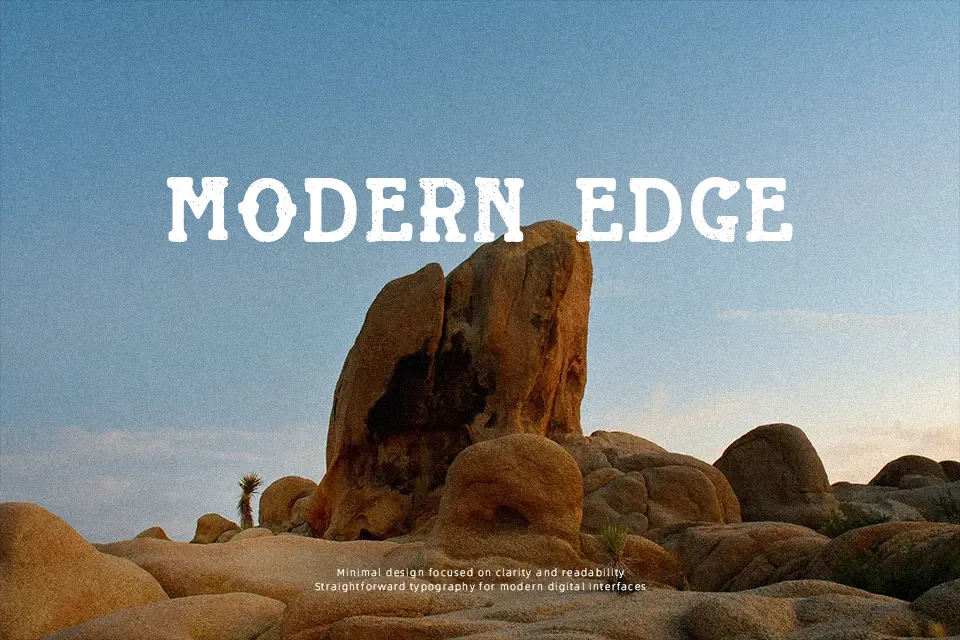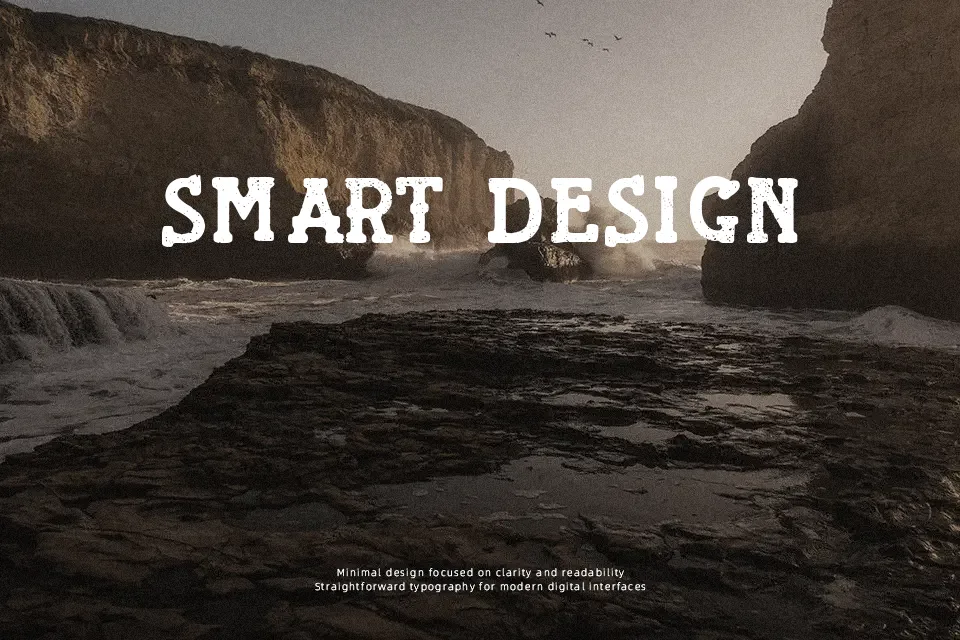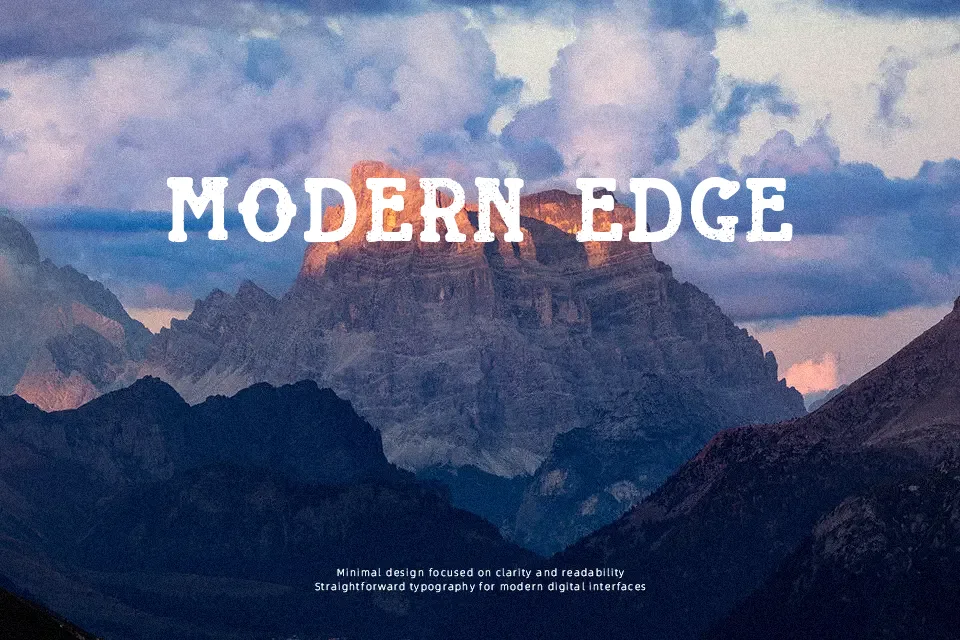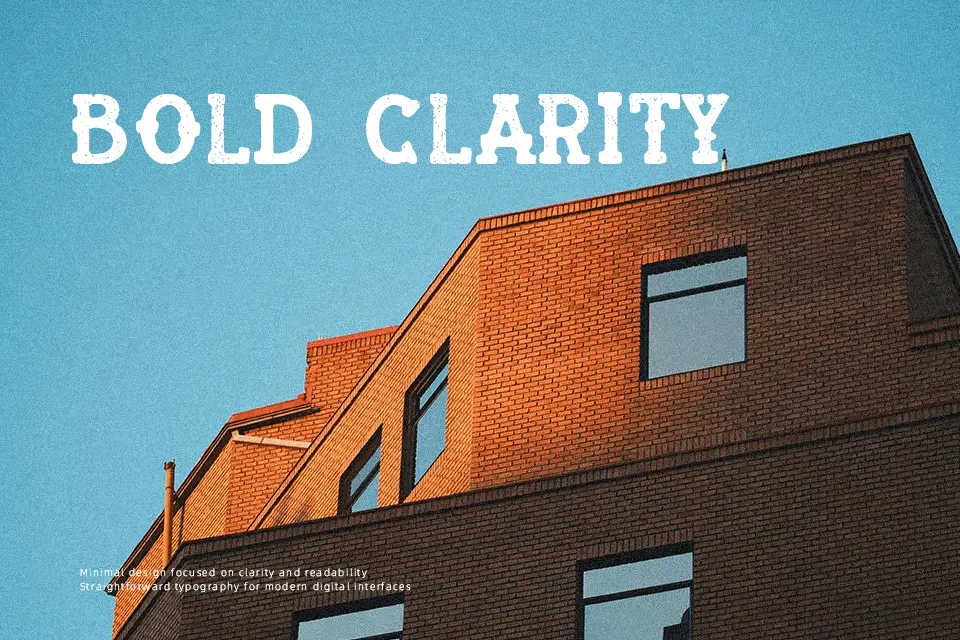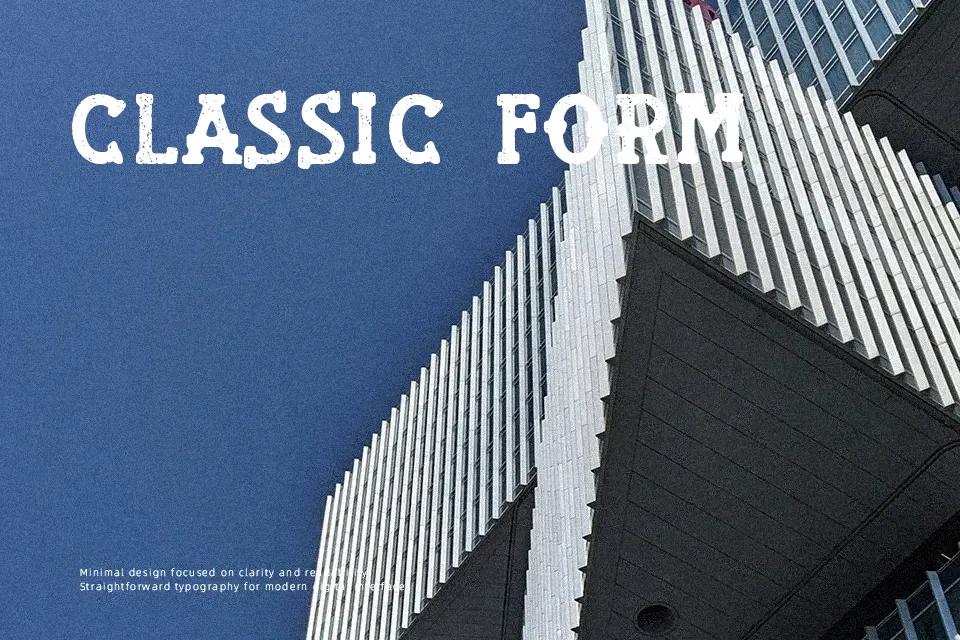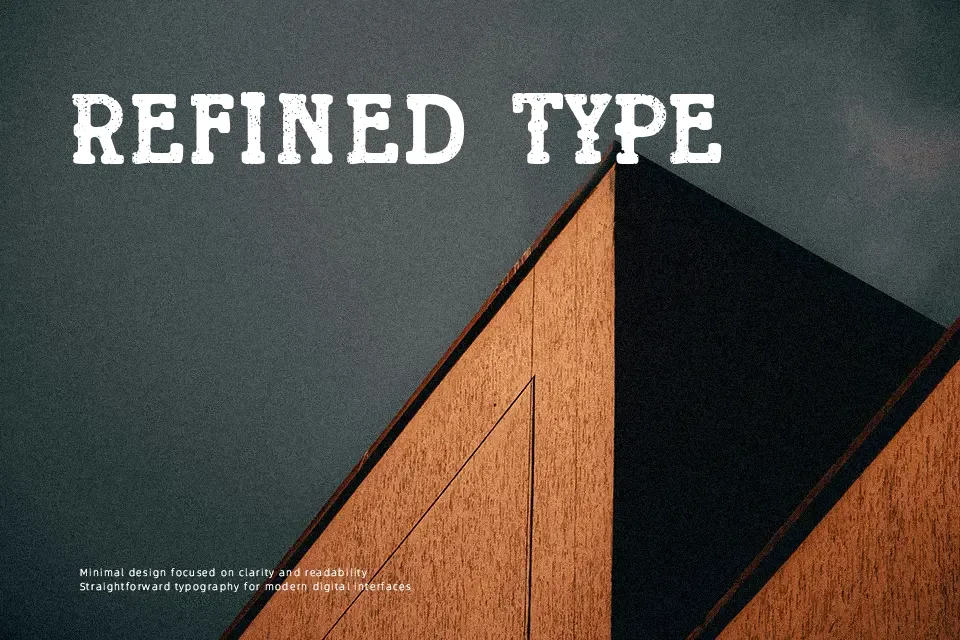
Bikers Church Font
Bikers Church by Woodcutter is a rugged display font that commands attention with its heavily worn, retro aesthetic. Featuring thick, blocky strokes and a heavily weathered texture, it successfully captures the rebellious spirit of motorcycle culture. Its sturdy, uppercase-focused structure and dense spacing provide a grounded appearance designed specifically for high-impact layouts. This typeface thrives on motorcycle club apparel, vintage event posters, and gritty merchandise needing a dramatic, unapologetic edge. However, the distressed detailing and robust weight cause it to lose legibility at smaller sizes, rendering it completely unsuitable for body text or clean, minimalist branding. Compared to standard collegiate block styles, Bikers Church delivers a distinctly raw and authentic attitude.
– Motorcycle club apparel and patch designs
– Vintage-themed event posters
– Gritty merchandise and heavy branding
– Extensive paragraphs of body text
– Clean and minimalist corporate identities
– High-end luxury or formal invitations